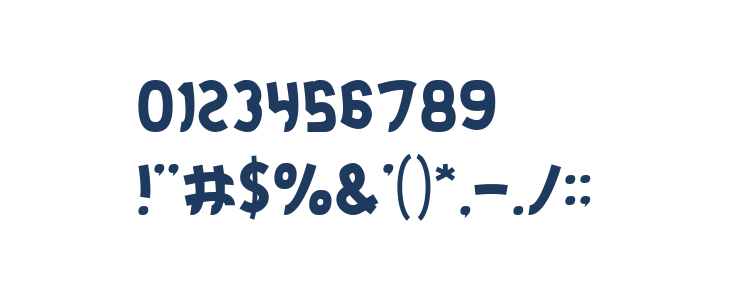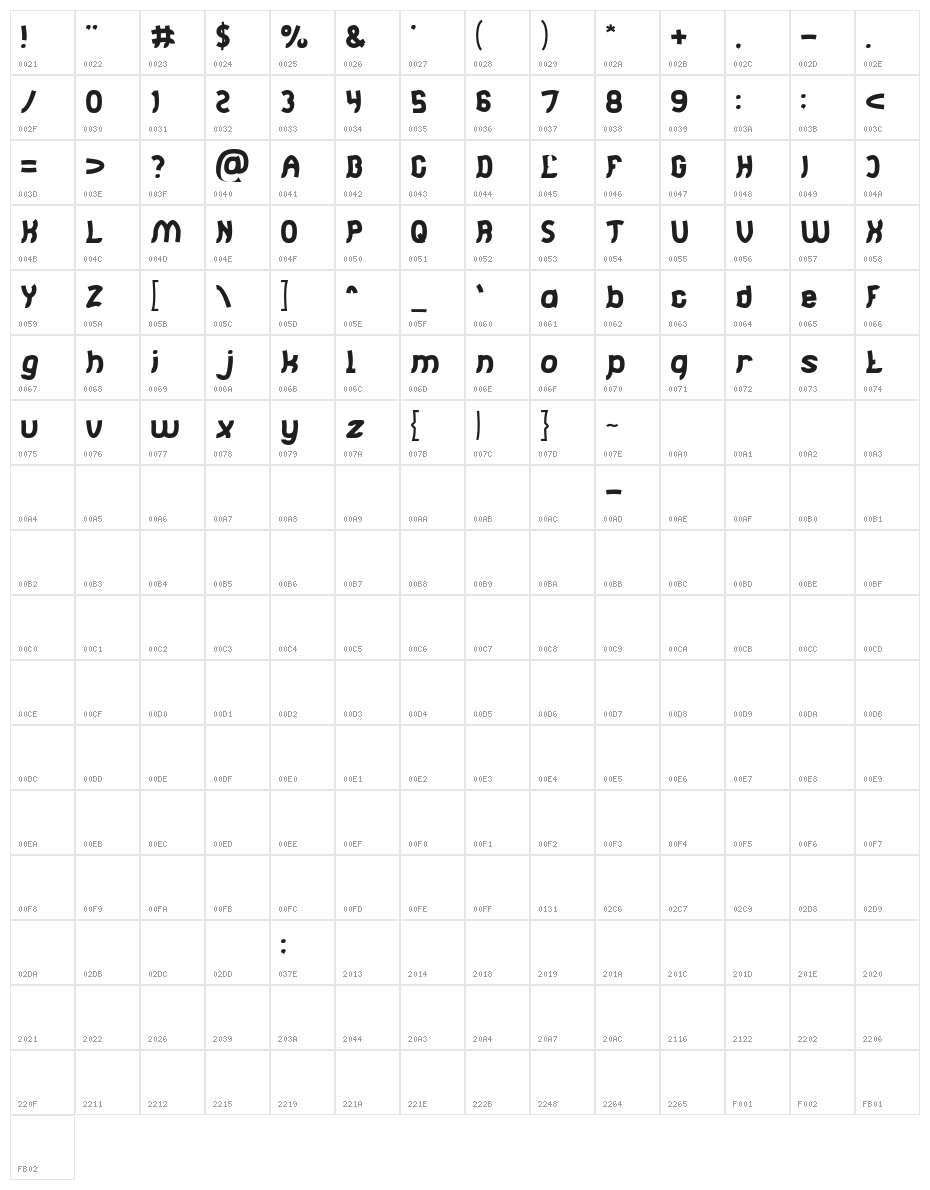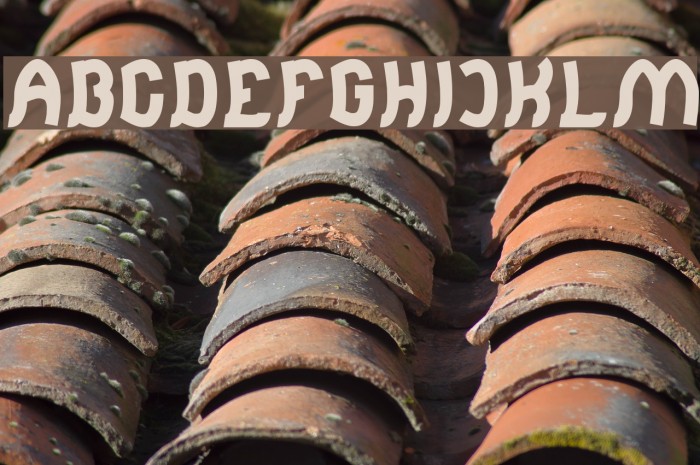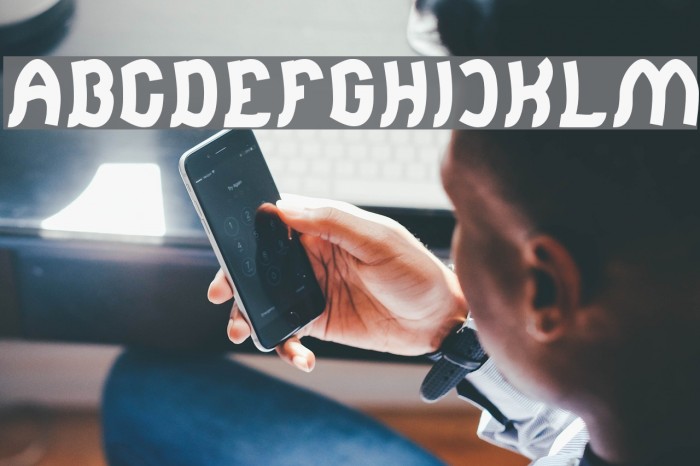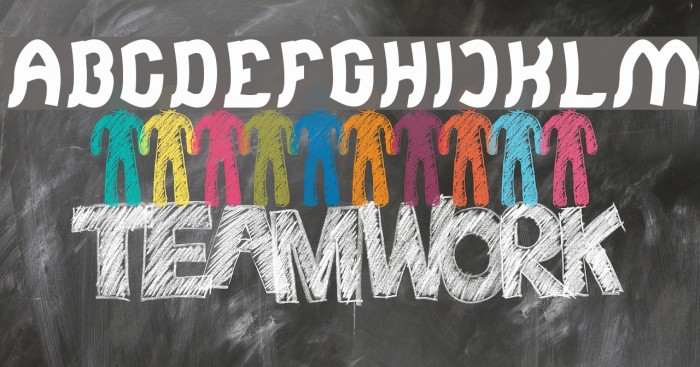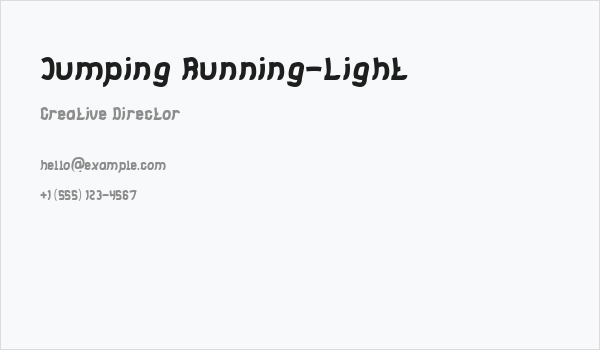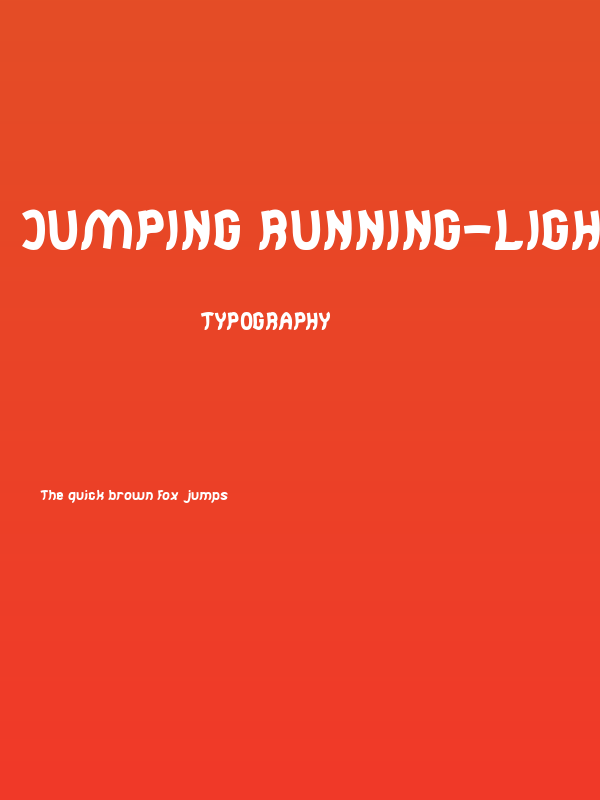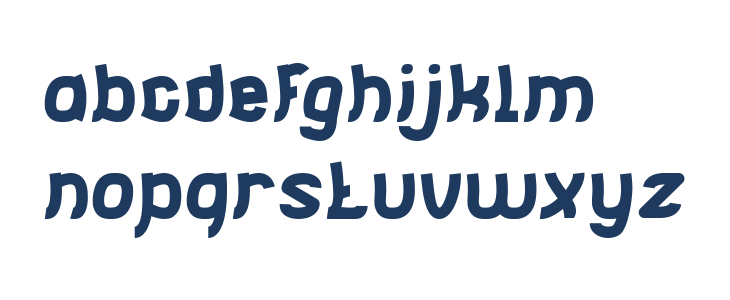
Jumping Running-Light Font
Jumping Running-Light Description
This playful and dynamic font features a bold and energetic style, characterized by its irregular and slightly whimsical letterforms. The characters exhibit a sense of movement and liveliness, with varying stroke widths that add to its unique charm. The uppercase and lowercase letters maintain a consistent style, while the numerals and special characters complement the overall design. This font's distinctive appearance makes it stand out, offering a creative and fun aesthetic.
| Overall Style | Playful, Energetic, Creative |
| Use Case | Headlines, Posters, Branding |
| Proposed Projects | Ideal for children's books, playful branding, event posters, and creative projects that require a lively and energetic typeface. |